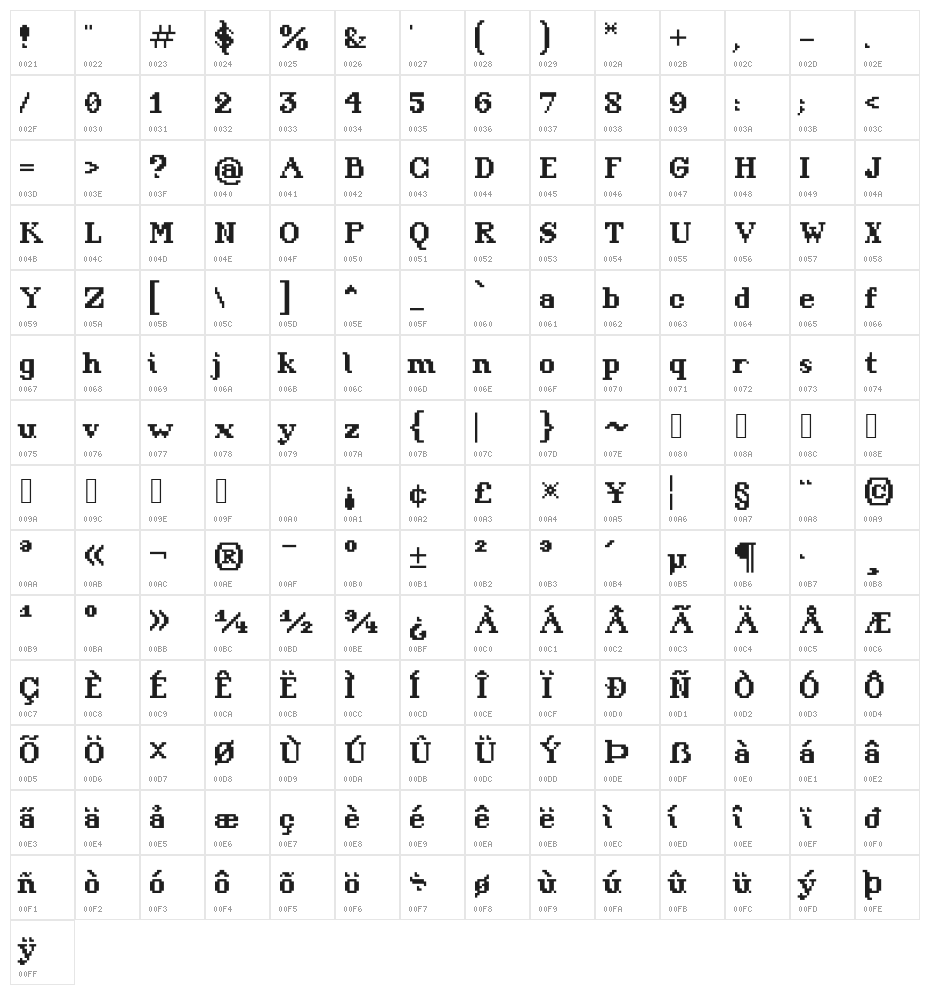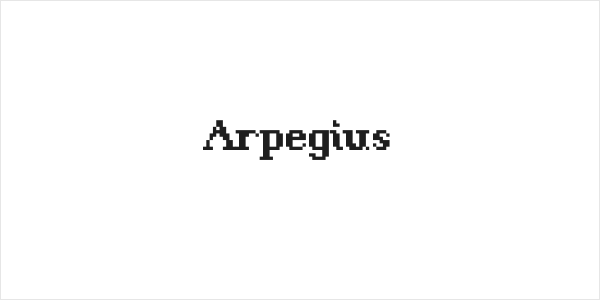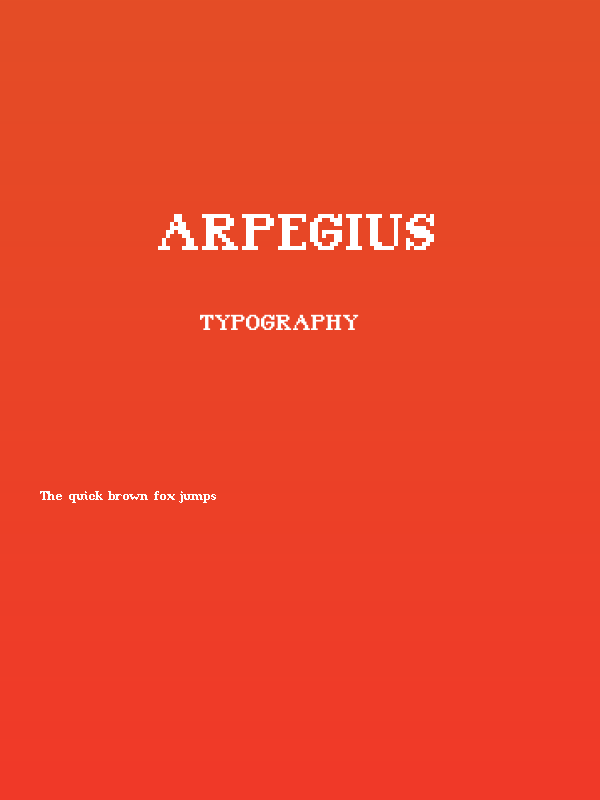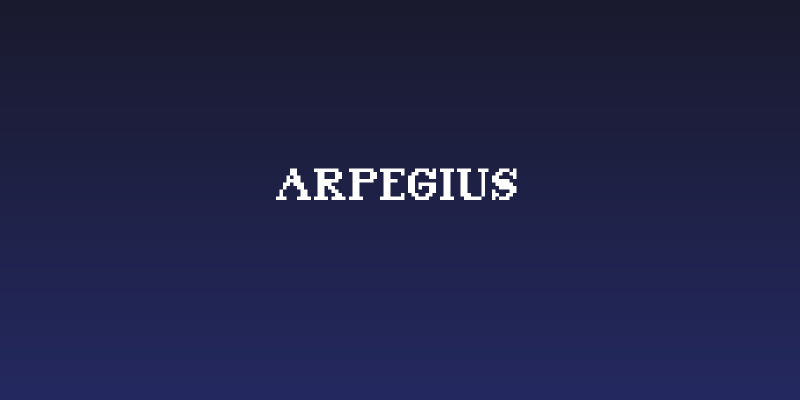
Arpegius Font
Arpegius Description
This font features a bold and distinctive style with a pixelated, blocky appearance reminiscent of early digital or video game typography. The characters are uniformly wide, giving it a monospaced feel, although it is not strictly monospaced. The uppercase letters are robust and commanding, while the lowercase letters maintain the same pixelated aesthetic, ensuring consistency across the typeface. Numbers and special characters follow the same design principles, making this font ideal for retro-themed projects. Its unique style captures attention and evokes a sense of nostalgia.
| Overall Style | Retro, Digital |
| Use Case | Headlines, Logos, Digital Art |
| Proposed Projects | Ideal for retro video games, digital art projects, and nostalgic branding. |